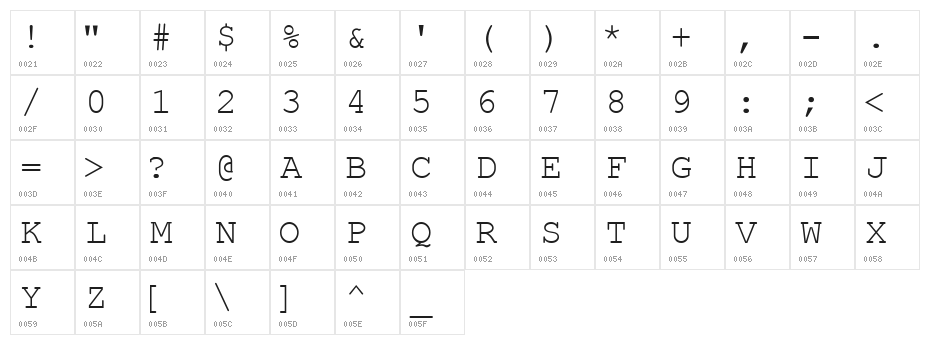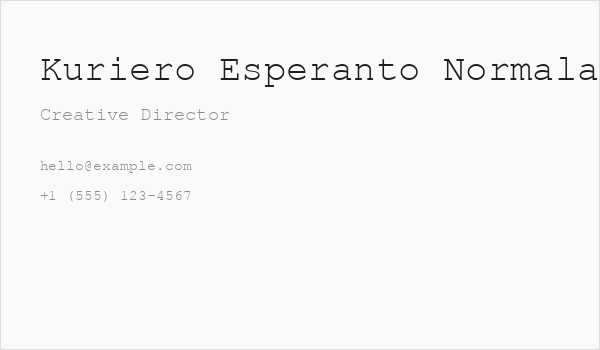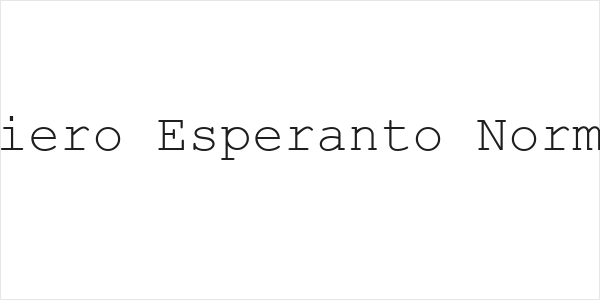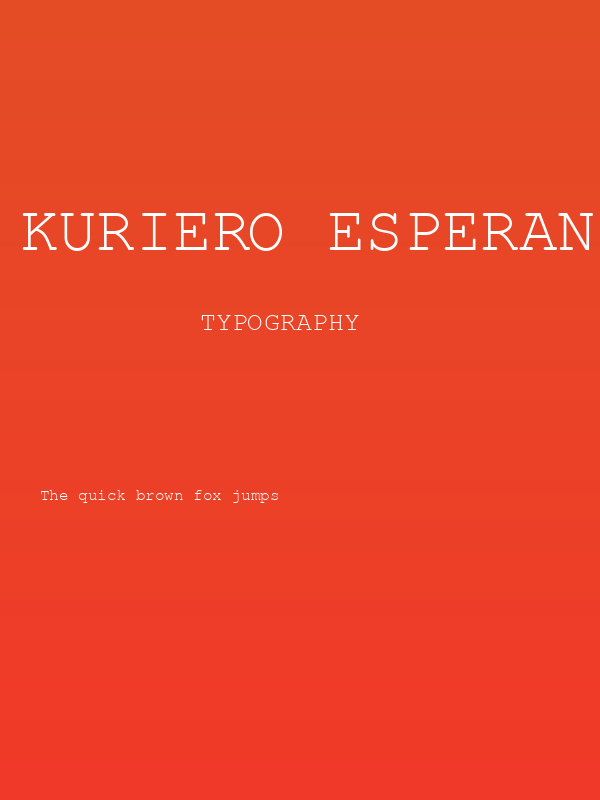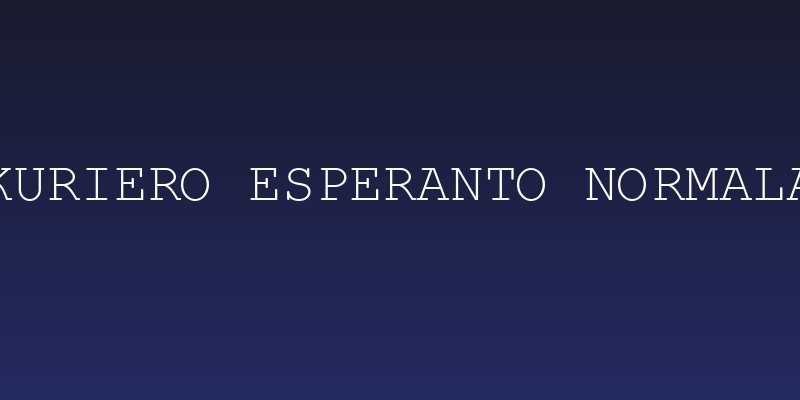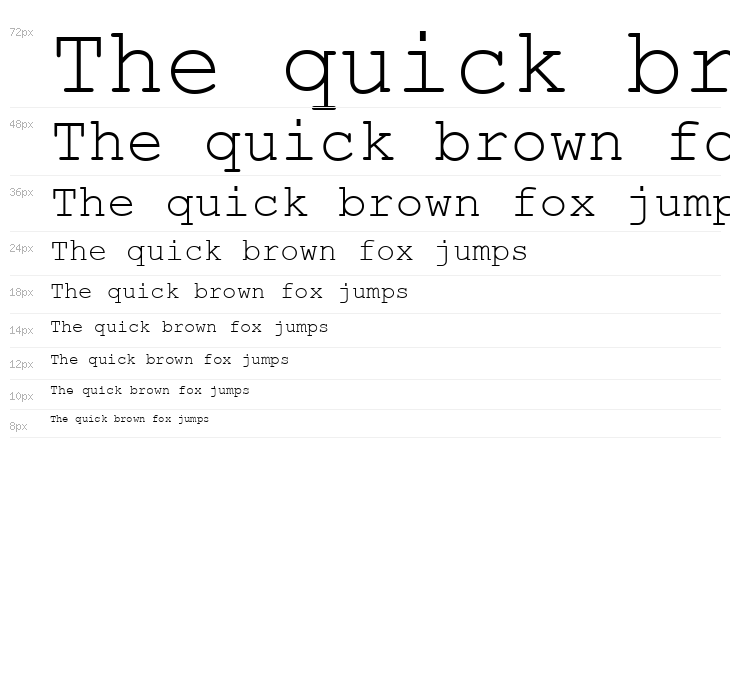
Kuriero Esperanto Normala Font
Kuriero Esperanto Normala Description
This font features a clean, monospaced design with a modern and minimalist aesthetic. Each character is evenly spaced, providing a uniform appearance that enhances readability. The strokes are consistent in thickness, offering a low contrast that contributes to its straightforward and functional style. The uppercase and lowercase letters are well-proportioned, and the numerals align perfectly with the overall geometric structure. Special characters are distinct and clear, making this font versatile for various applications.
| Use Case | Coding, Technical documentation, Minimalist design |
| Proposed Projects | Ideal for coding environments, technical documentation, and minimalist design projects. |